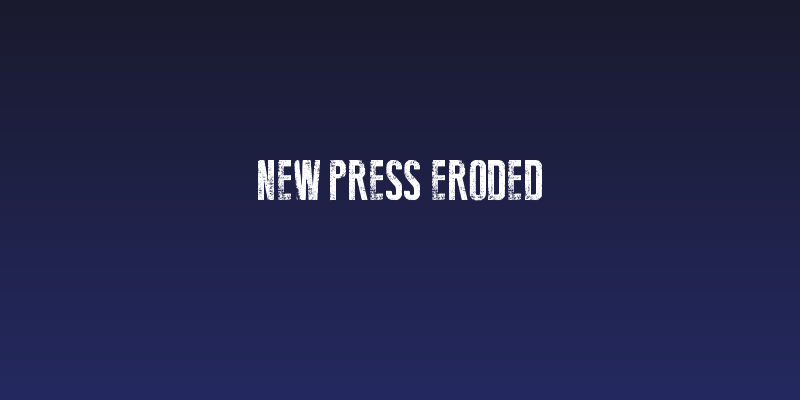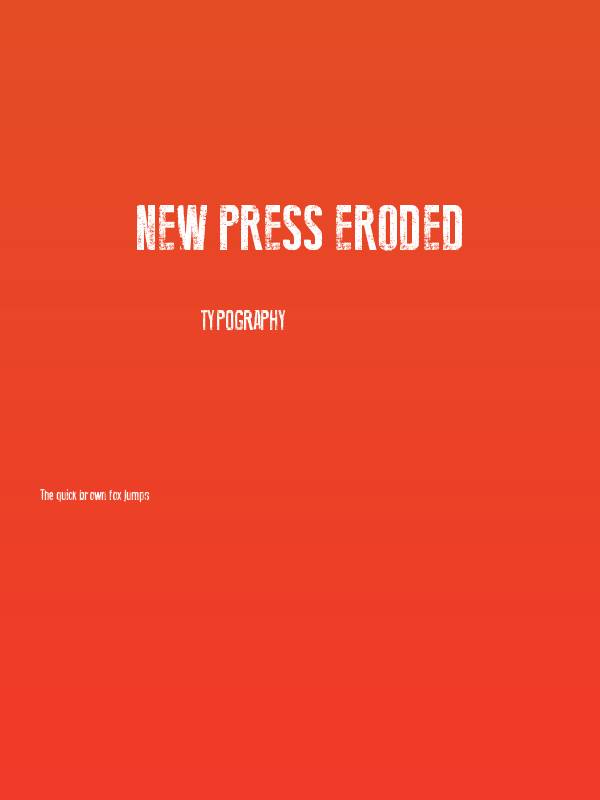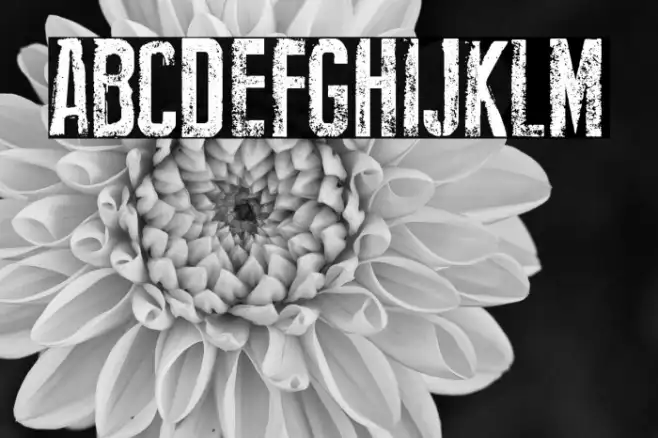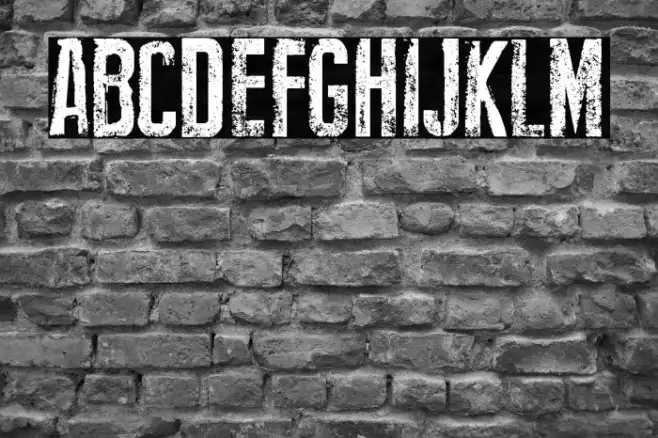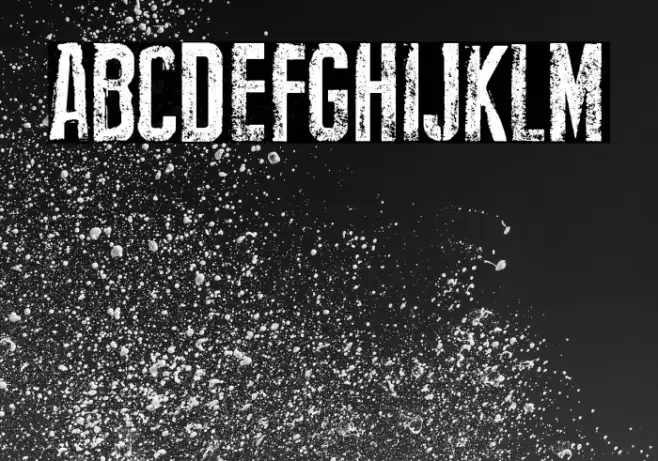
New Press Eroded Font
New Press Eroded Description
This font features a distressed, eroded appearance, giving it a rugged and vintage feel. The characters are bold and uppercase letters are slightly taller than the lowercase, maintaining a consistent width throughout. The texture mimics a worn-out, printed look, making it ideal for designs that require a grunge or industrial aesthetic. The numbers and special characters share the same eroded style, ensuring uniformity across all glyphs. This font's unique texture adds character and depth, making it stand out in any design project.
| Proposed Projects | Ideal for posters, album covers, branding for vintage or industrial-themed products, and any project requiring a bold, textured look. |